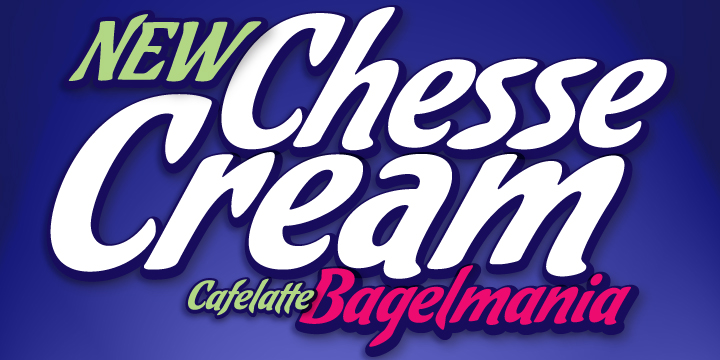
It’s not everyday that you want to have dark chocolate with your favorite latté. But sometimes, as out of the ordinary as it is, it can be just the ticket.
Cafelatte’s design offers a somewhat unpolished calligraphic concept, reminiscent of wooden type, but done with the unique brush of Angel Koziupa and Bezier wizardry of Alejandro Paul. The discerning packaging designer will certainly find it refreshing to be able to put a darker, unconventional touch on his or her design. And who says primal instincts can't express themselves elegantly?